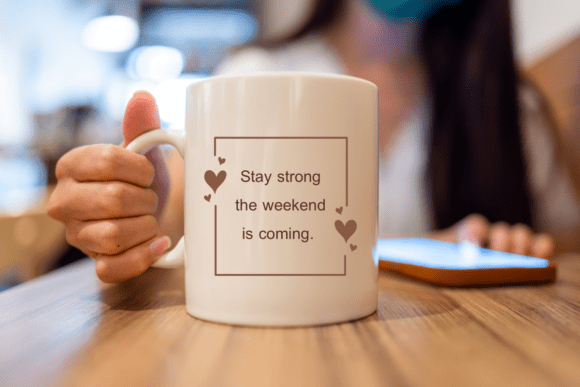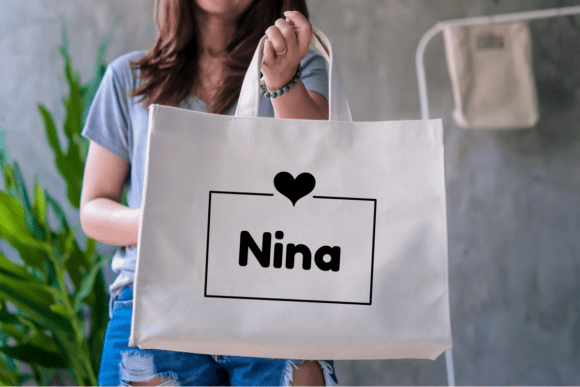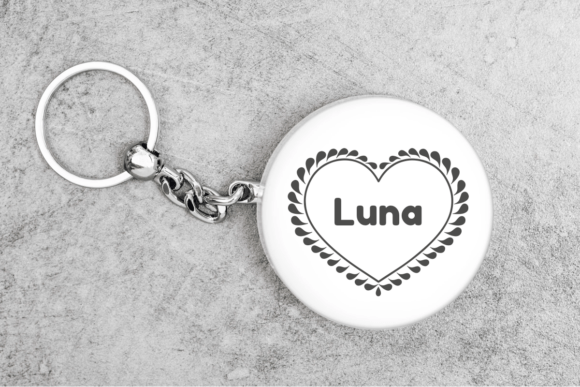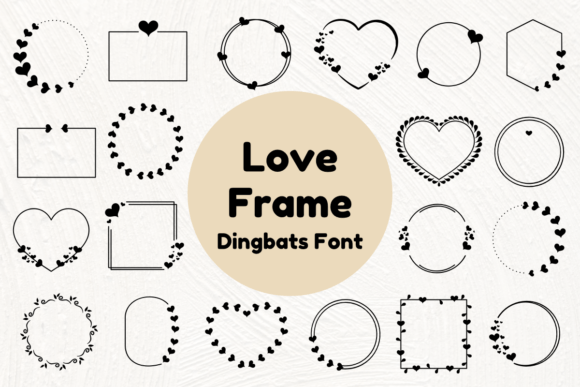
Introduction to Love Frame Font
Love Frame is a dingbats font with a romantic theme.
This font can enhance your creative projects such as wedding invitations, DIY, crafts, decorations, logos, and many other creative ideas .
Key Features of Love Frame Font